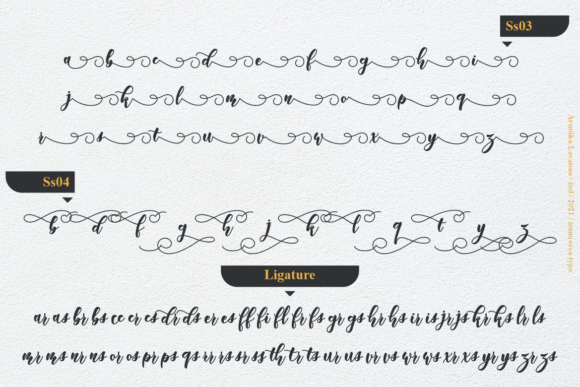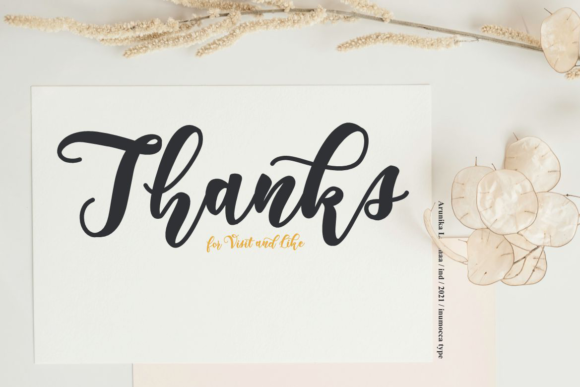
About Arunika Lavanaa Font
Arunika Lavanaa is a detailed and romantic handwritten font. Dainty and joyful, this font will be ideal for writing wedding invitations, cards or any other design that may need a romantic, personalized touch!